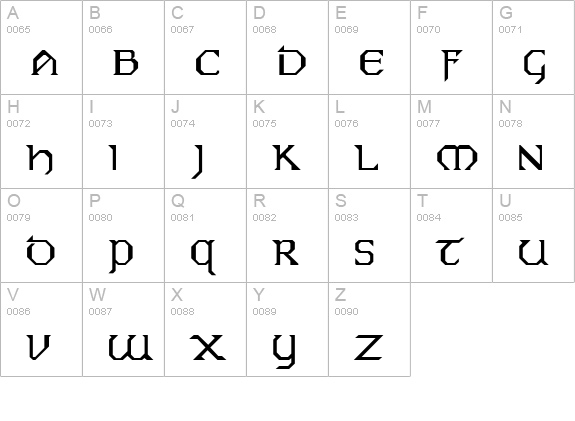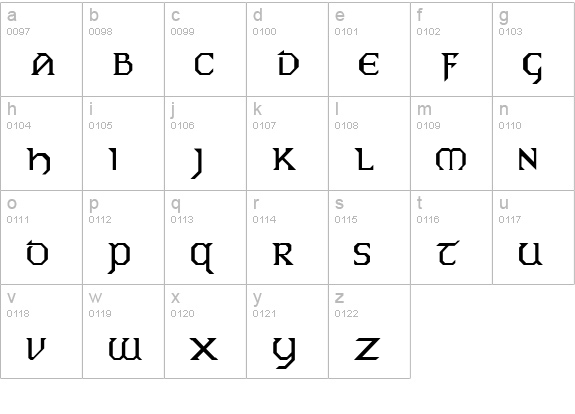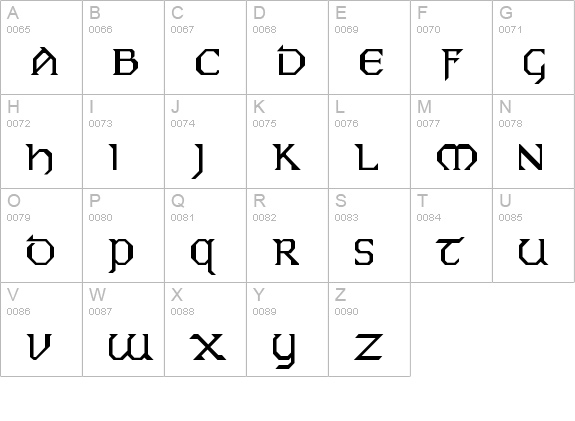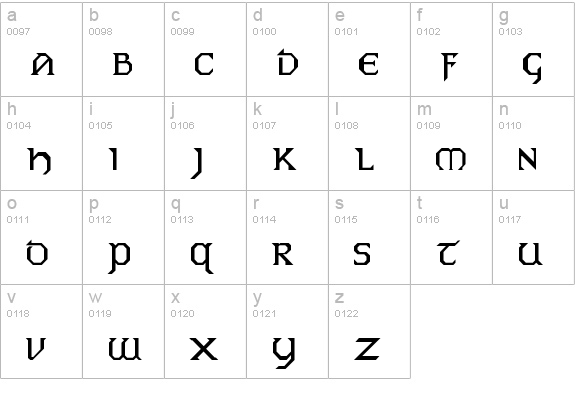
Eire Normal is the standard, neutral variant in the Eire typeface family \xE2\x80\x94 well suited to general body text, paragraphs, and standard typographic work.
Eire Normal font is a versatile and stylish typeface that exudes elegance and sophistication. Its clean lines and balanced proportions make it perfect for a wide range of design projects, from branding to editorial layouts. The timeless appeal of Eire Normal font makes it a must-have for any designer looking to add a touch of class to their work. Best of all, Eire Normal font is available for free download at FontsMarket.com. This means you can enjoy the beauty and versatility of this font without having to spend a penny. Don't miss out on the opportunity to enhance your designs with the exquisite Eire Normal font - download it today and see the difference it can make!